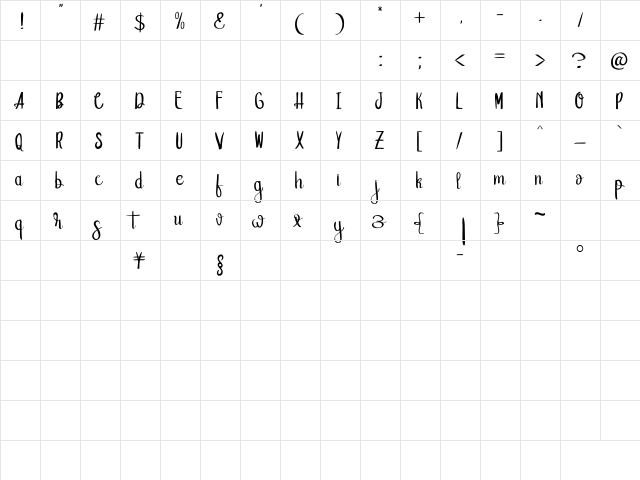
NaturalKaliDEMO Regular Font Preview
NaturalKaliDEMO Regular
Design Context for NaturalKaliDEMO Typeface
NaturalKaliDEMO is a composed and adaptable typeface that performs quietly and consistently across a wide range of design contexts.